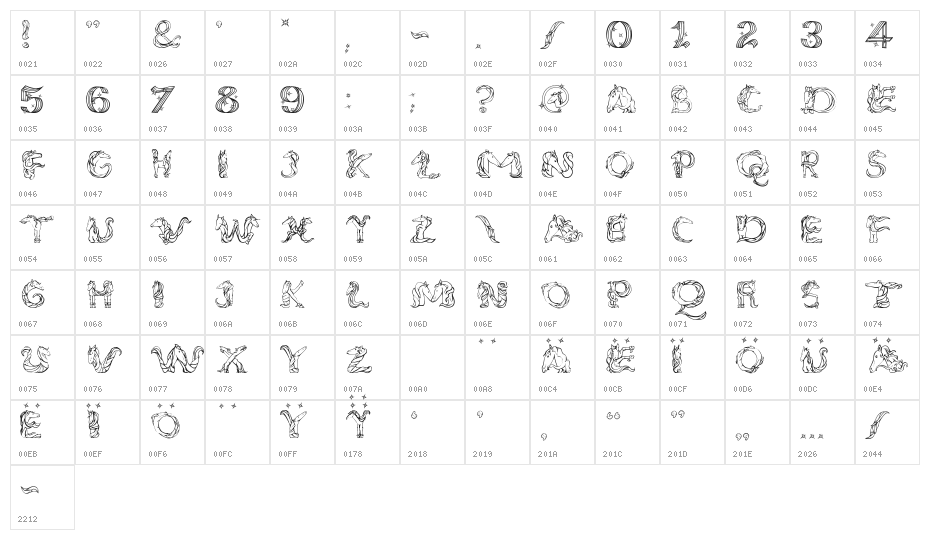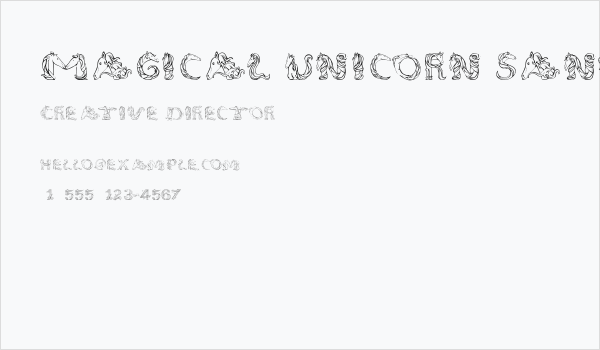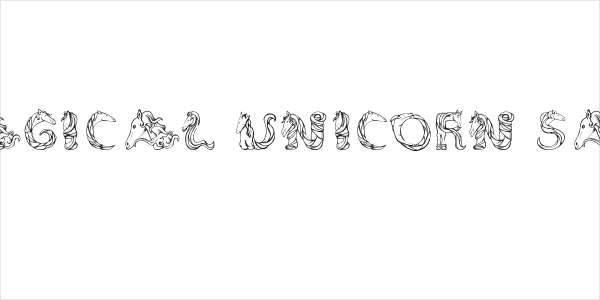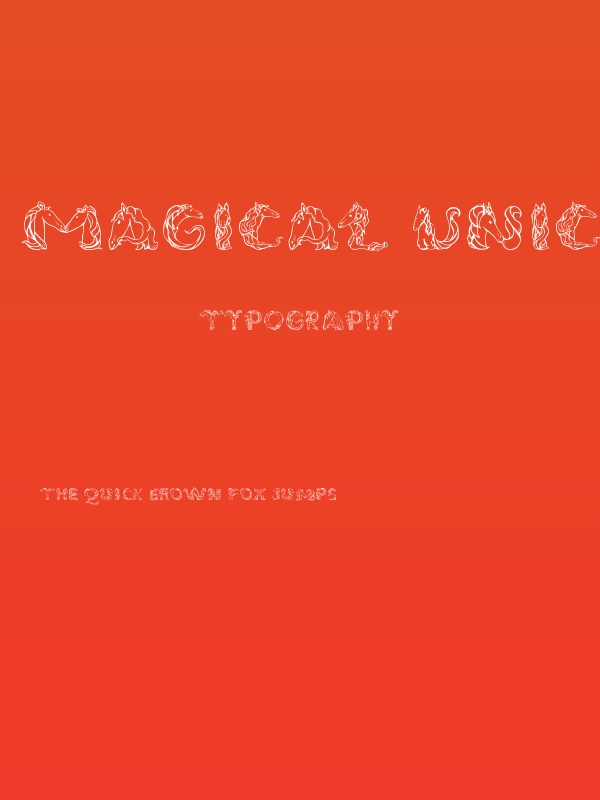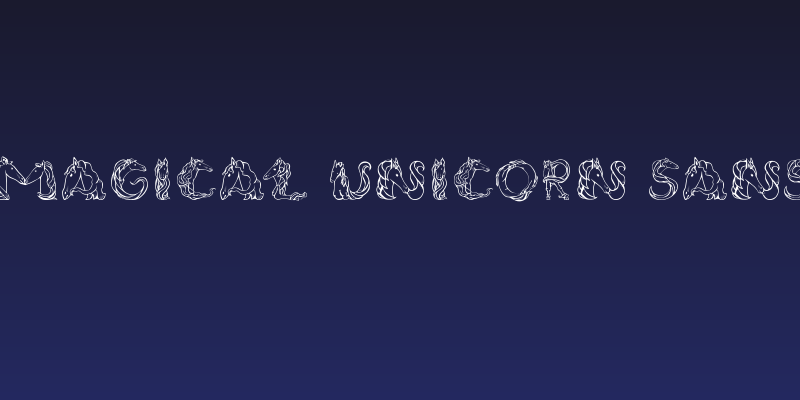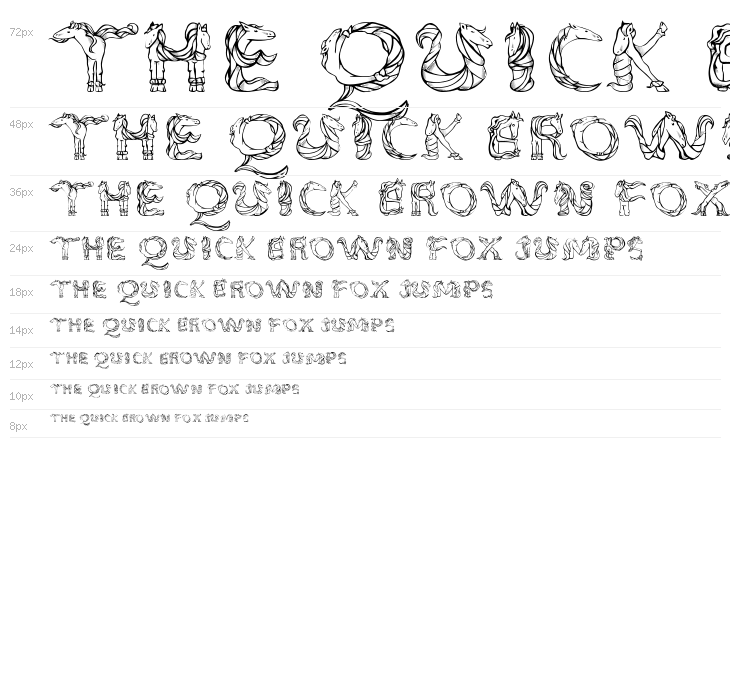
Magical Unicorn Sans Font
Magical Unicorn Sans Description
This whimsical and enchanting font features intricate, decorative elements that evoke a sense of fantasy and magic. Each character is adorned with unique, swirling patterns and mythical motifs, reminiscent of unicorns and fairy tales. The letters are highly stylized, with elaborate curves and embellishments that create a playful yet elegant appearance. The font maintains a consistent theme throughout, with each letter and number offering a distinct yet harmonious design. The special characters are equally ornate, adding to the overall magical aesthetic.
| Proposed Projects | Ideal for fantasy-themed projects, children's book covers, magical event invitations, or whimsical branding. |